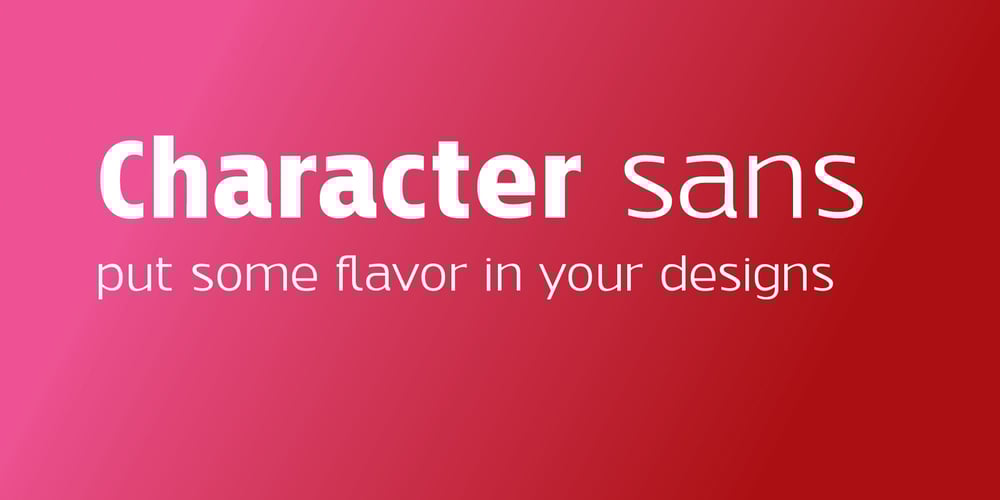
Character Sans Font Family was designed by Leonhard Katschner and published by Brave Type. Character Sans contains 5 styles and family package options. Character Sans is a detail full sans serif typeface in 5 styles. It features all european languages, ligatures, arrows and minuscule numbers. It’s characteristic style features are straightened ends and sharp curves. The lighter weights have great white spaces and their width is orientated on the heavier weights. Character Sans was made to have style and not to be uniform.